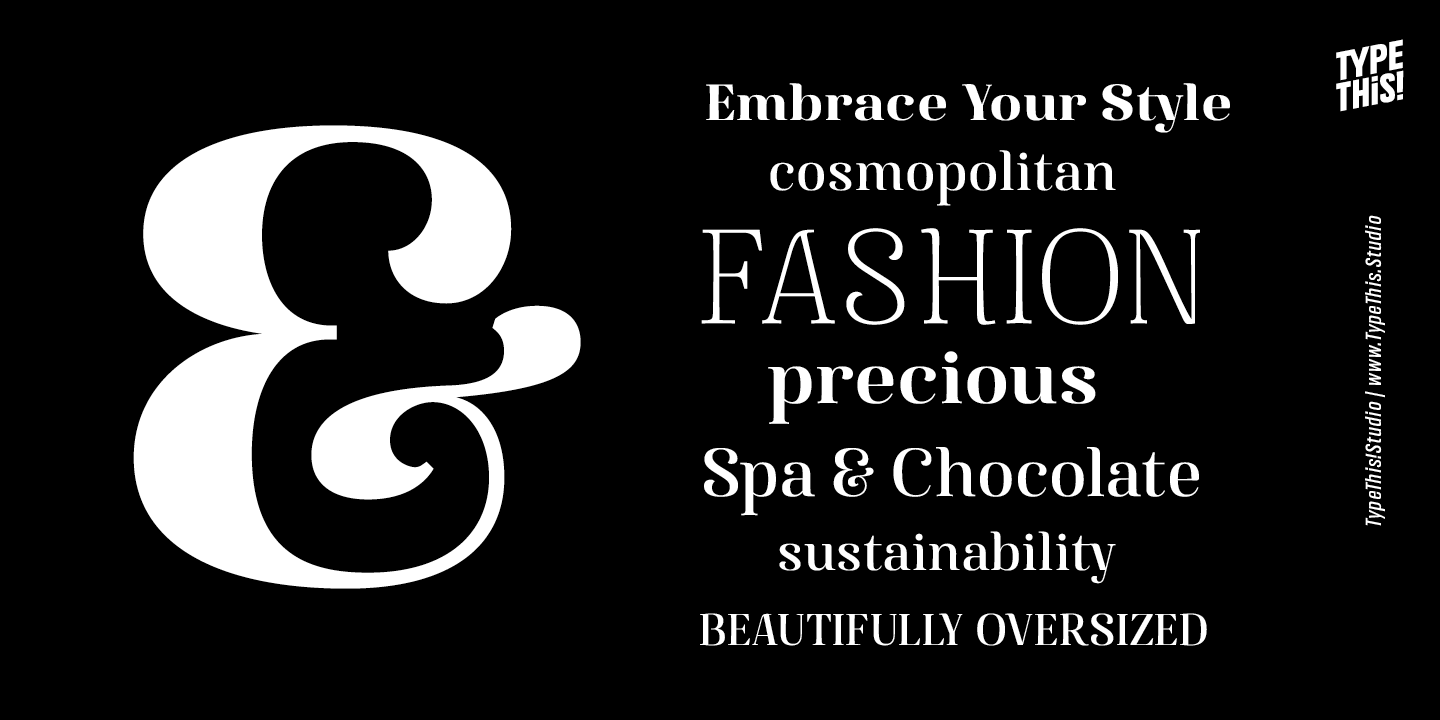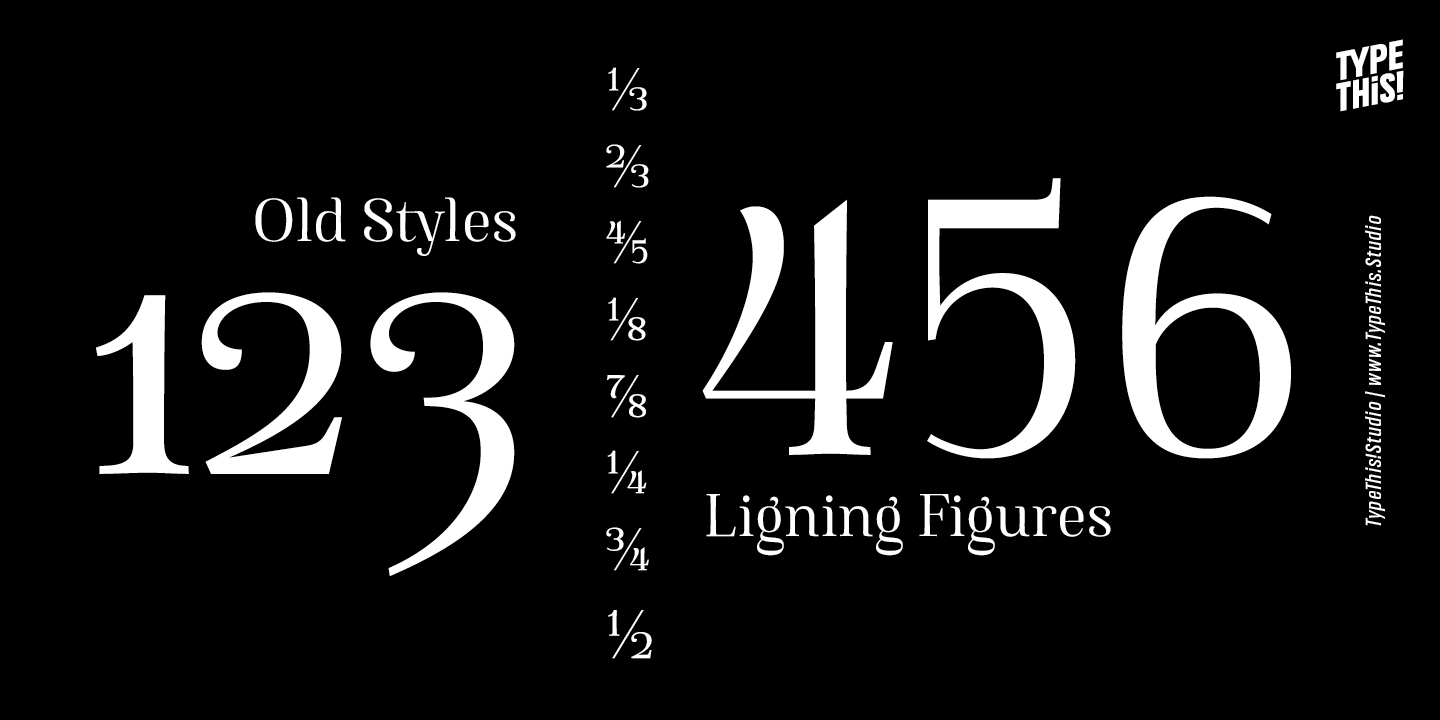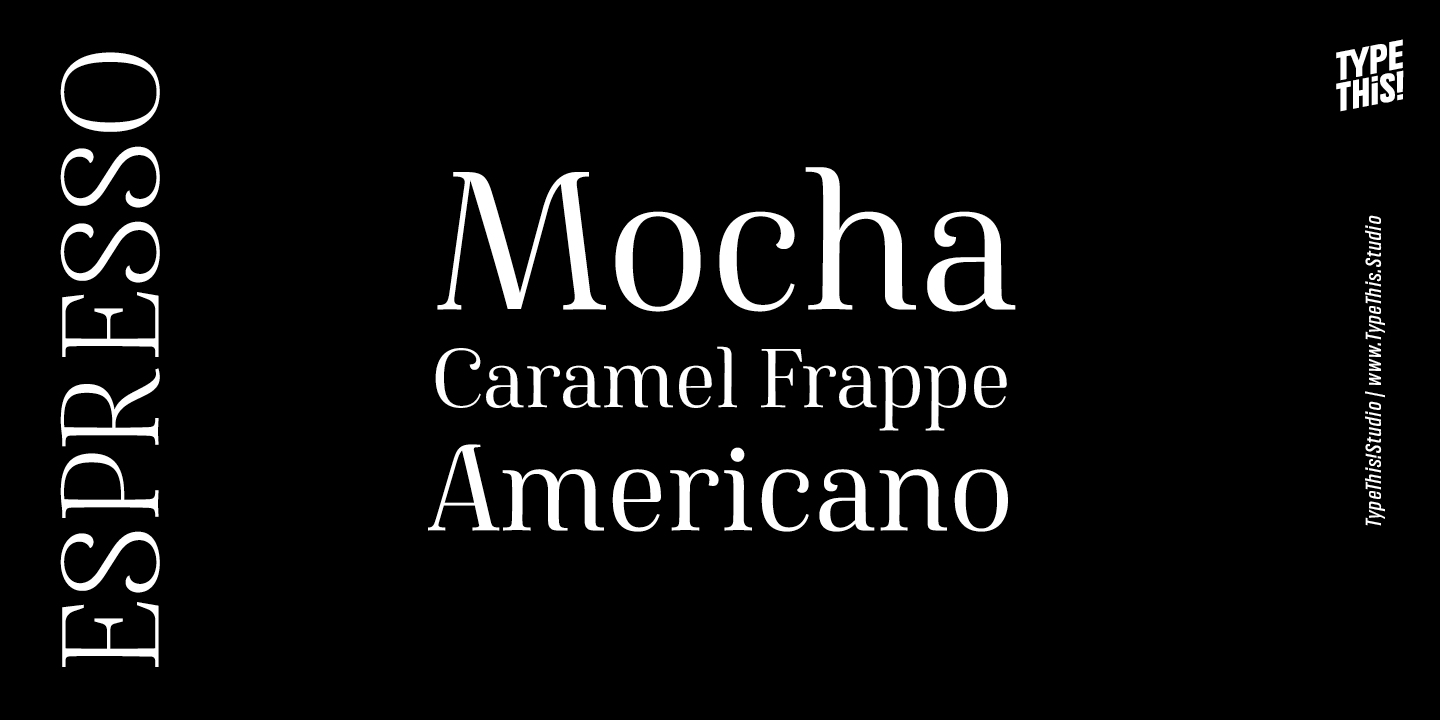
About Famosa Core
Modern aesthetic meets classy handmade elegance. Famosa is designed for all your stylish fashion magazines, clothing brands, and logos as well as your elegant blogger themes. The highlights are for sure the beautiful ligatures, such as sh, ct, fb and…